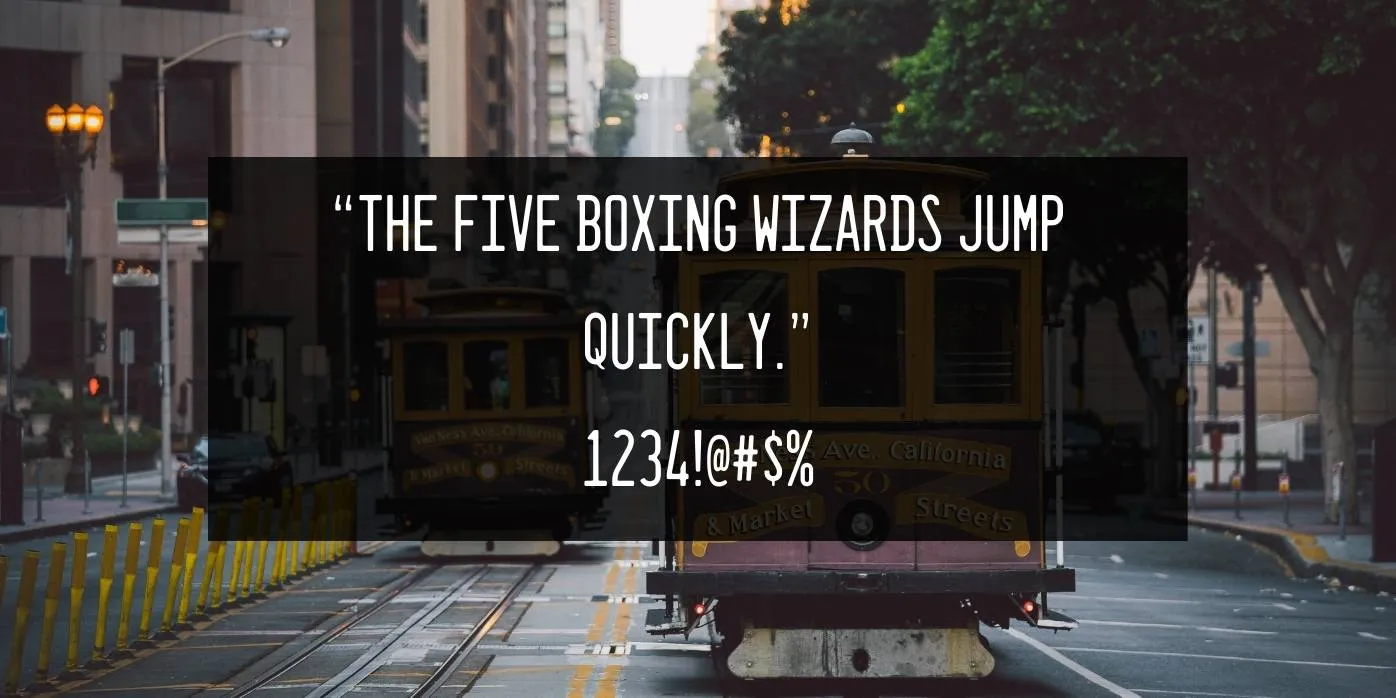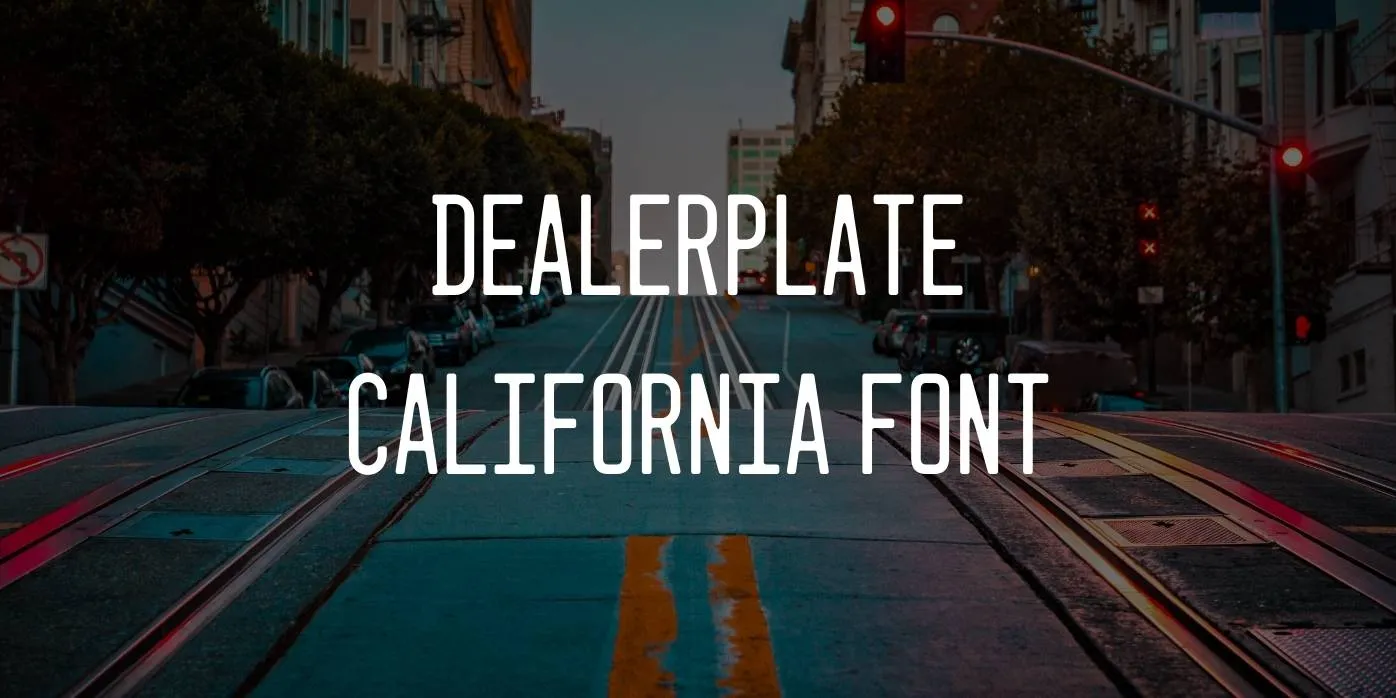
Dealerplate California Font
Today, we introduce a modern typeface Dealerplate California Font. This family belongs to the sans serif family. The shapes of the letters are simple and readable. The main thing is that all the letters have their own space.
Also, this family supports many languages. This typeface will be perfect for any project where you need a clean and elegant look. This typeface was designed by Ray Larabie. Try it in branding, advertising, web design, or even in printed materials.